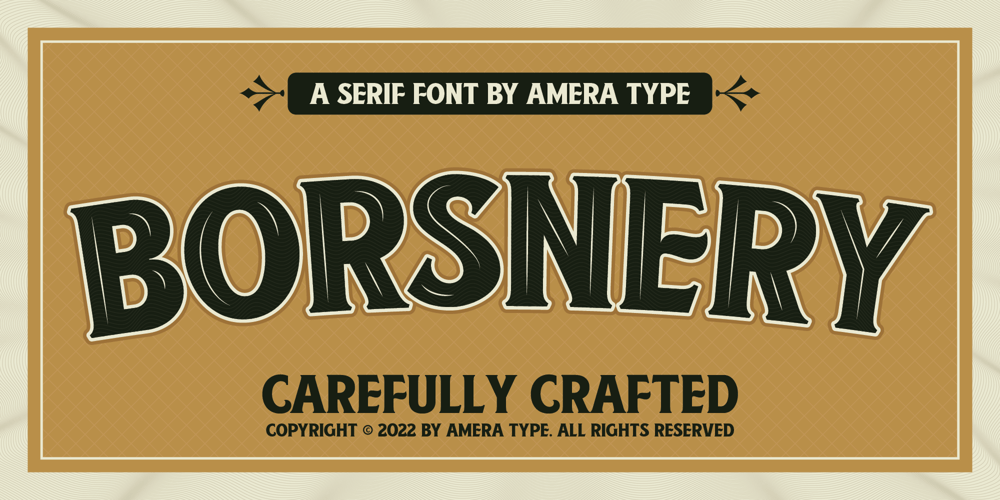
AT Borsnery Font Family was designed by Cahyadi Ikhsan and published by Amera Type. AT Borsnery contains 1 styles and family package options. Borsnery is a decorative font that can be a great choice for your visual needs. With a modern vintage style, it can be more ideally used for posters, signage, and other visual branding needsAnd now we provide a different work than before, the first time for our fonts combined with well and carefully crafted illustrations. If you like and want this, please visit ameratype.com